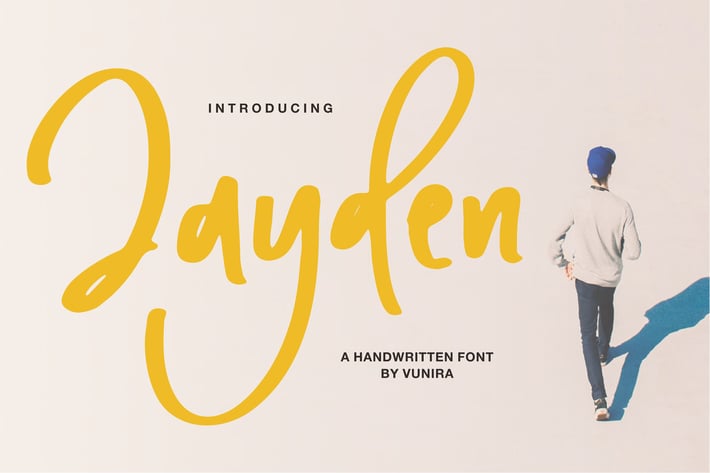
Jayden | A Handwritten Font
Jayden | A Handwritten Font with a calligraphy style, So beautiful on invitation like greeting cards, branding materials, business cards, quotes, posters, and more!